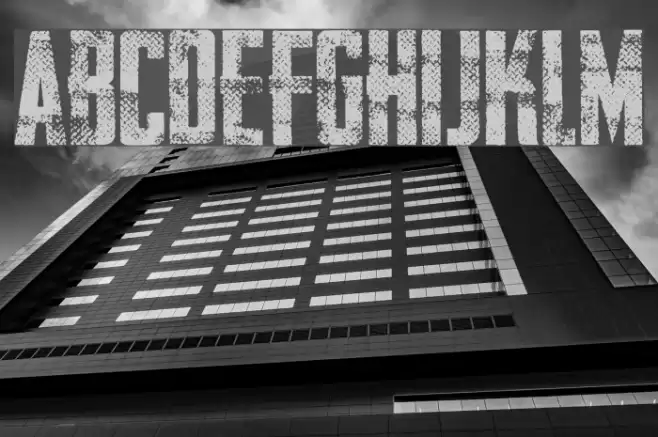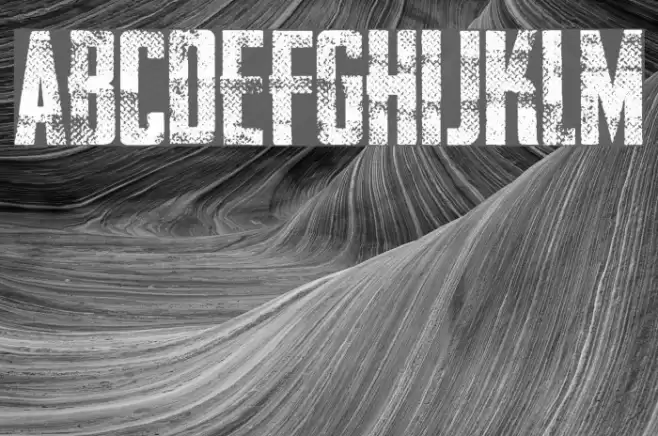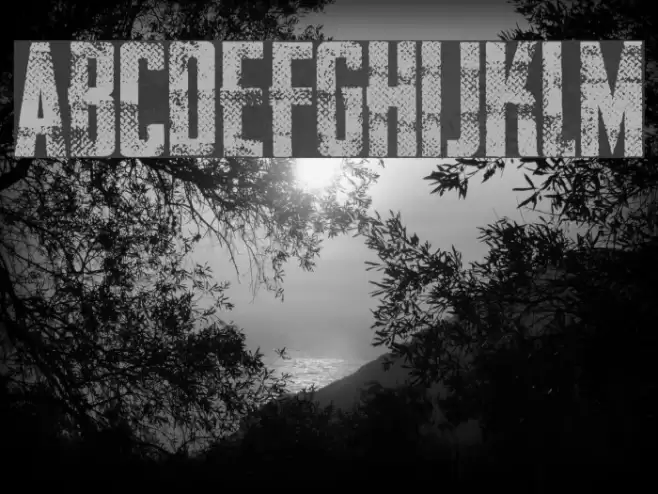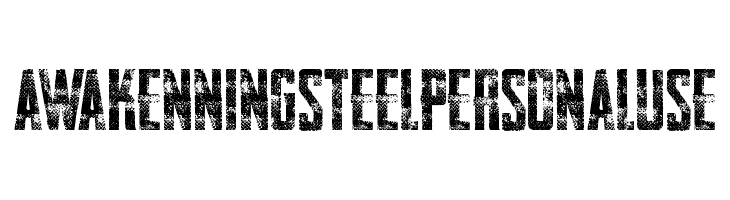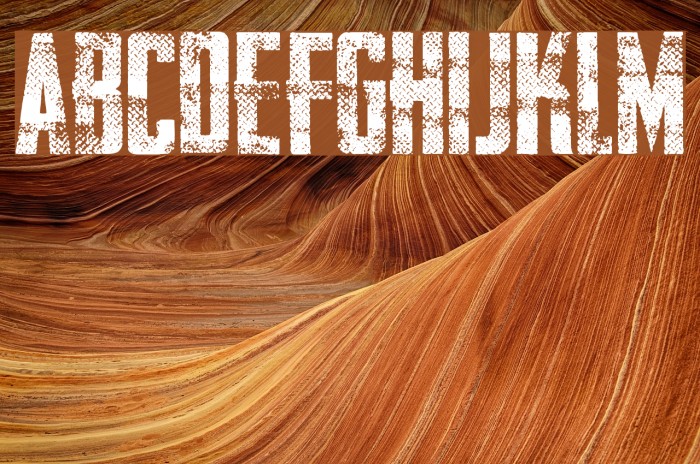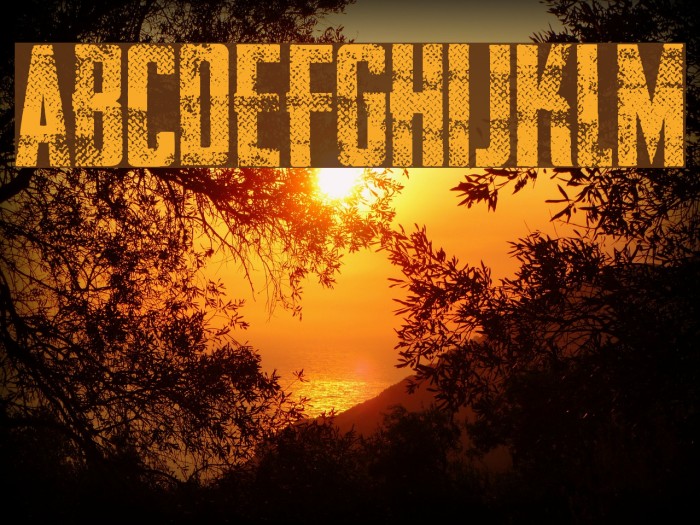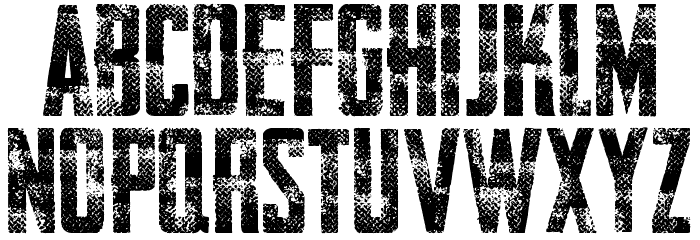
AWAKENNING STEEL Personal Use Font
AWAKENNING STEEL Personal Use Description
This font features a bold, distressed style with a textured, grunge appearance. The uppercase letters are uniformly designed with a blocky, robust structure, giving a sense of strength and ruggedness. The texture within each character adds a dynamic, worn effect, reminiscent of industrial or military stencils. The font's design is consistent across all characters, maintaining a cohesive look that is both striking and impactful. Its unique style makes it suitable for projects that require a bold statement or a vintage, gritty aesthetic.
A bold, distressed font with a textured, grunge appearance from Uncategorized fonts.
- Proposed Projects: Ideal for posters, album covers, branding for rugged products, or any design needing a bold, industrial look.
- Overall Style: Vintage